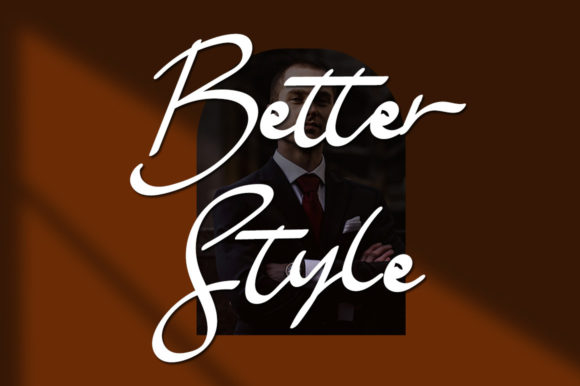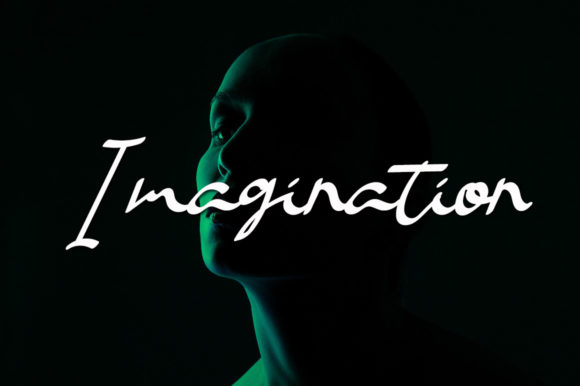
Rich Royal Font
db-ku.com - Script & Handwritten -- Rich Royal is a beautiful and relaxed script font. It is fresh, clean, and elegant. This font will undoubtedly look amazing in a great amount of projects, both formal and informal.